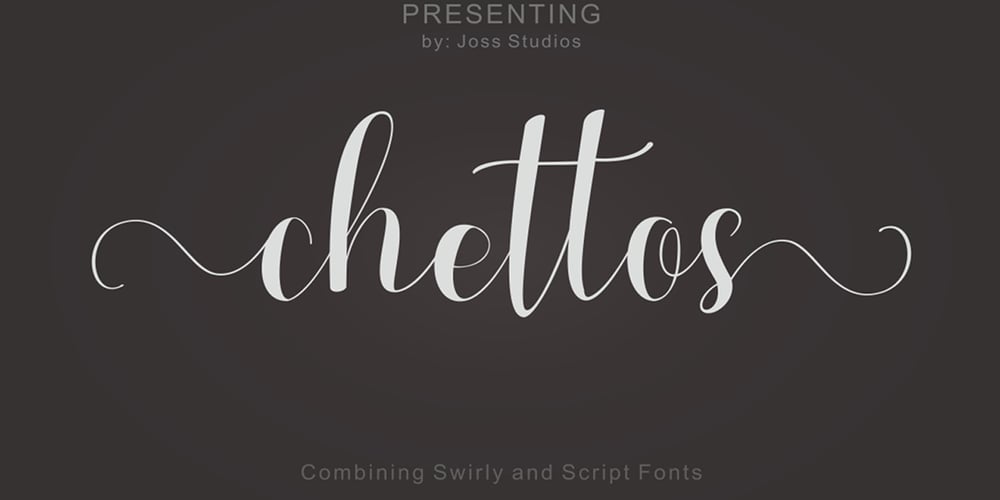
Chettos Script Font Family was designed by Teuku Zulfikar and published by Josstype. Chettos Script contains 1 styles and family package options. Introduce Chettos Script, Hand Lettered Calligraphy Font with beautiful waves and natural flow. has a unique letter style, with natural handdrawn, and has a softer and smoother character subtly connect all the characters.They have a simple elegant swashes in separate letters, you can use graphic design software to access the alternate letter.Chettos Script is perfect for weddings, invitations, greeting cards, quotations, posters, branding, business cards, stationary, title design, header blog, excerpts of art, the art of typography, letter envelopes modern or design books, occurred styles such as design handdrawn, title , letter marriage, pop vintage design, or purpose to make the project / art design we look beautiful and trendy.Chettos Script comes complete with 259 glyphs. This includes uppercase, lowercase, numbers, fractions, punctuation, multi-language support. and some other flying machines are variations that part of OpenType features such as; Standard ligatures, stylistic set, alternative style.If you have any questions, please feel free to contact me via email: joelpopon@gmail.com